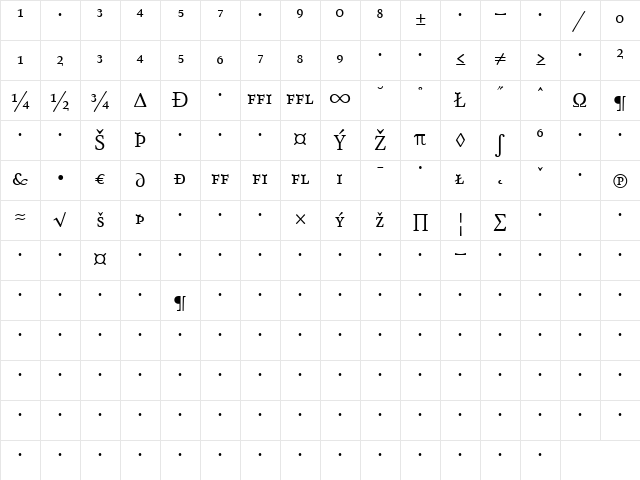
AtmaSerifExp-BookRomanSC Regular Free Font
AtmaSerifExp-BookRomanSC Regular
Design Context for AtmaSerifExp-BookRomanSC
AtmaSerifExp-BookRomanSC carries the refined structure of traditional serif typography, with bracketed terminals and considered proportions that communicate credibility and craft.
Pro Tip: Use AtmaSerifExp-BookRomanSC for editorial body copy and considered headline work. Pair with a neutral sans for UI elements or captions to create a classic hierarchy.